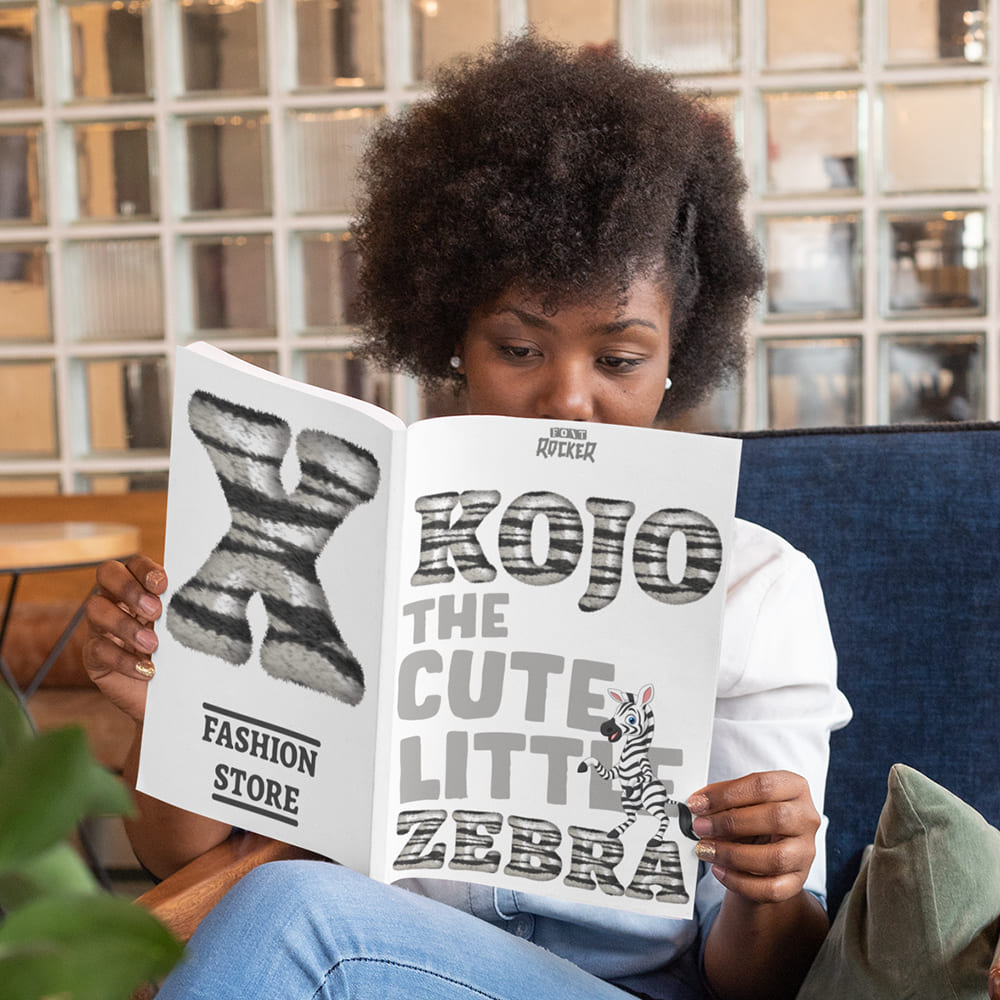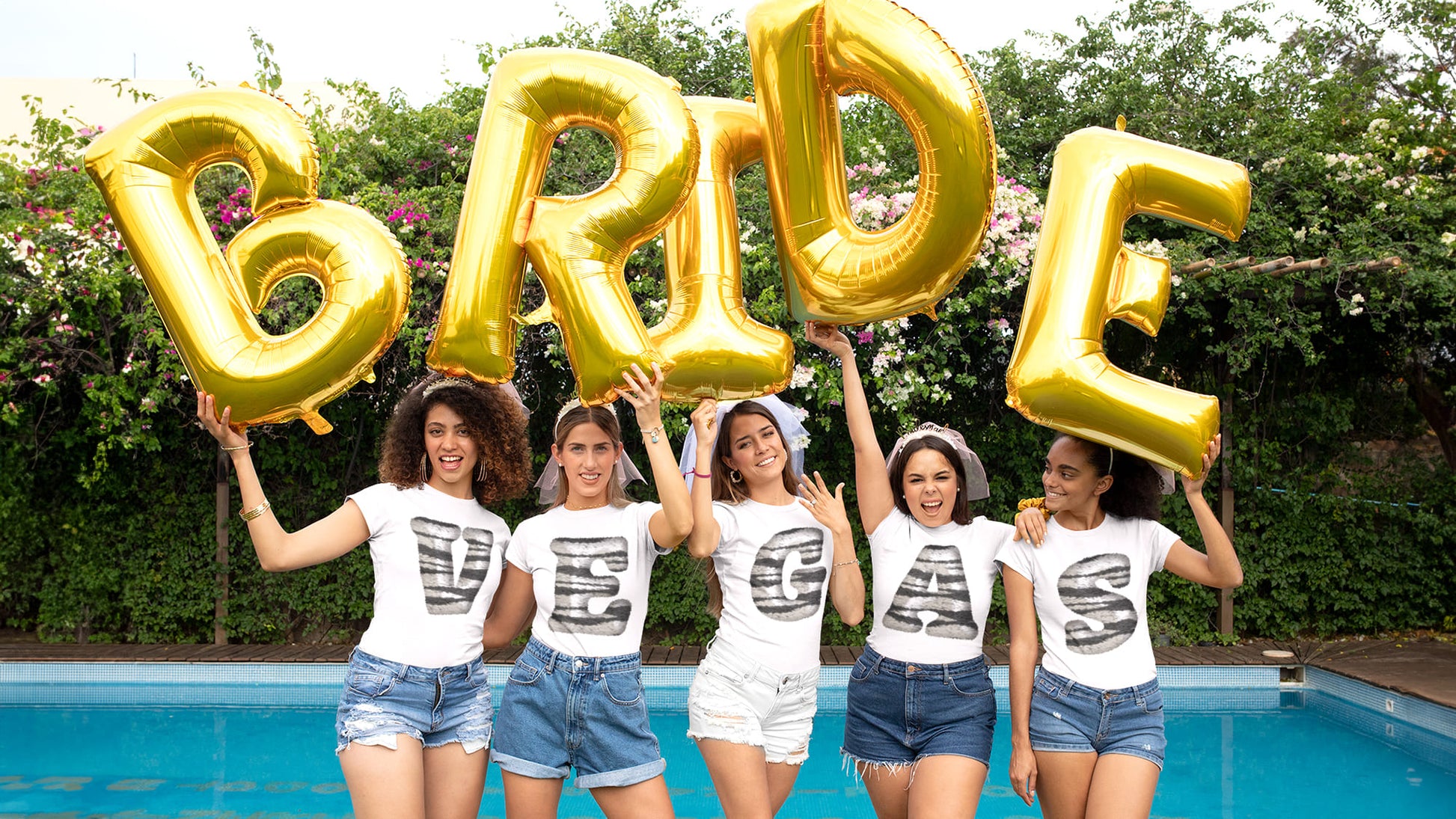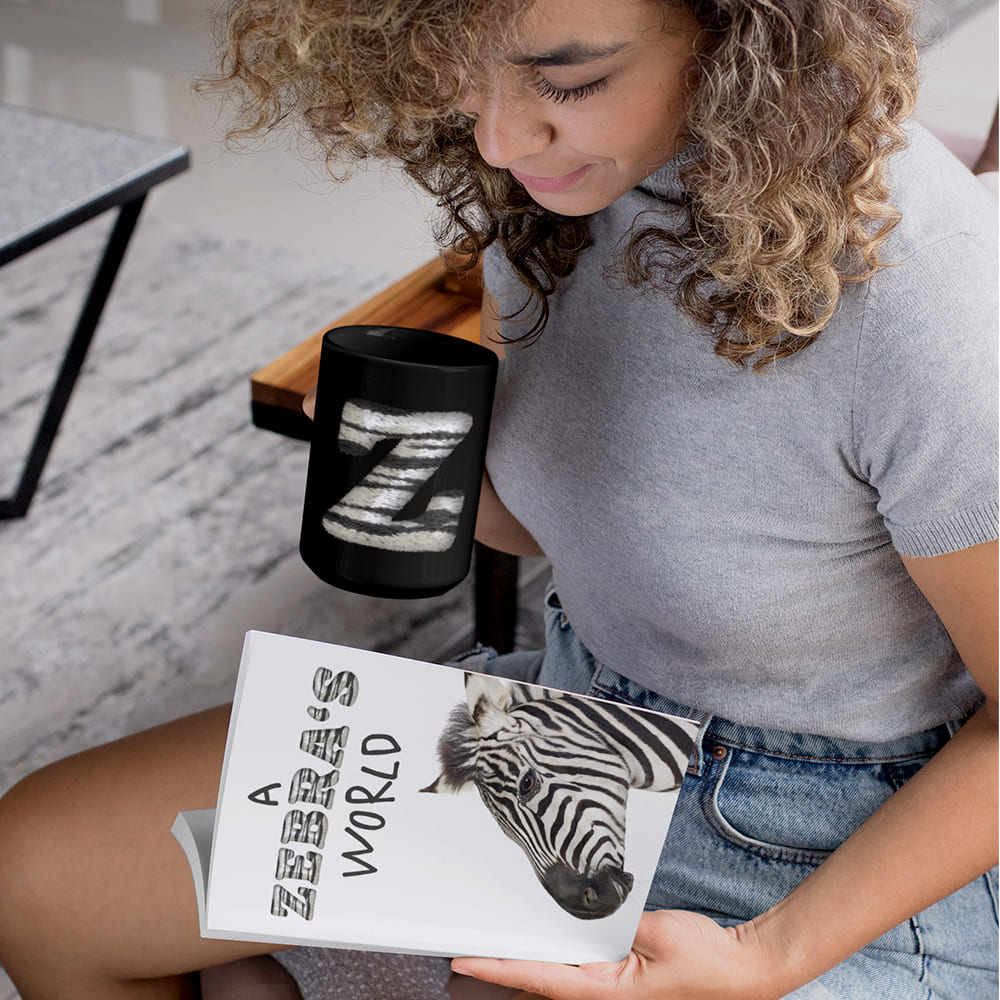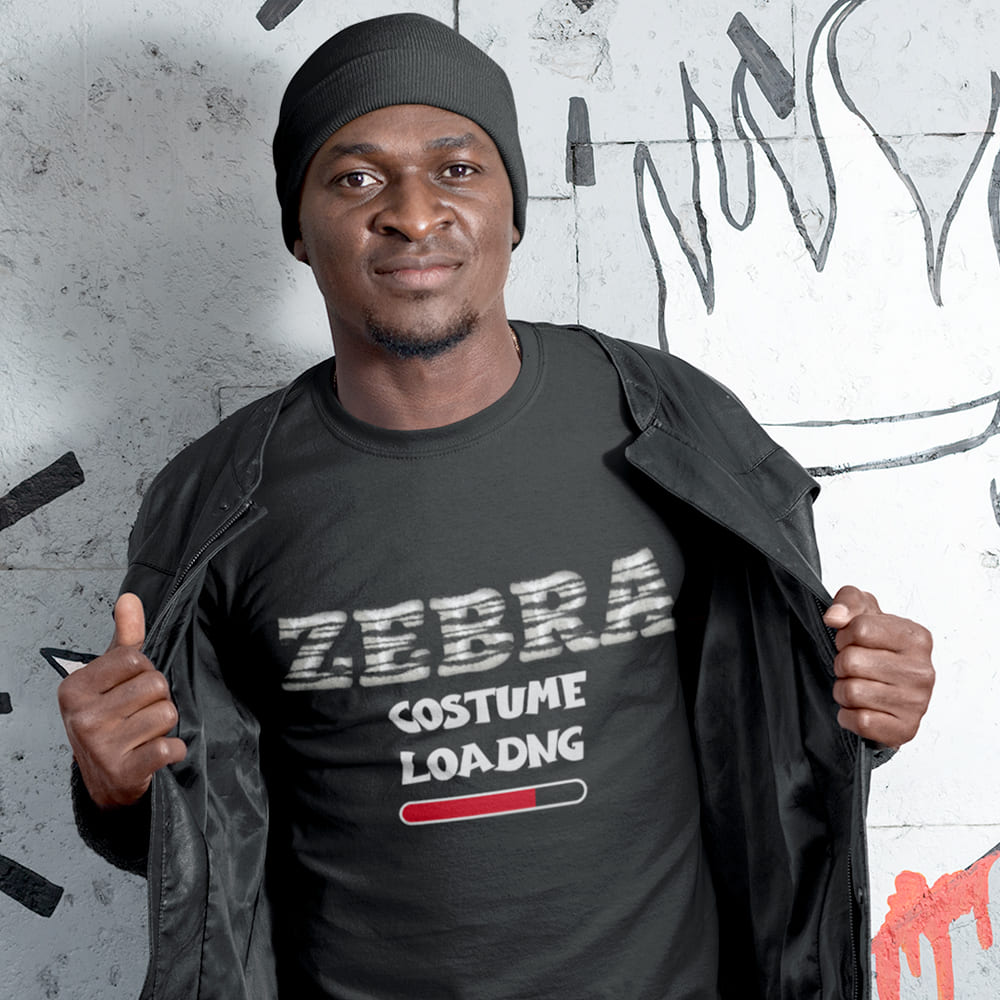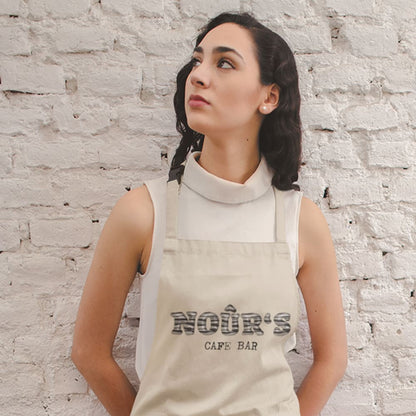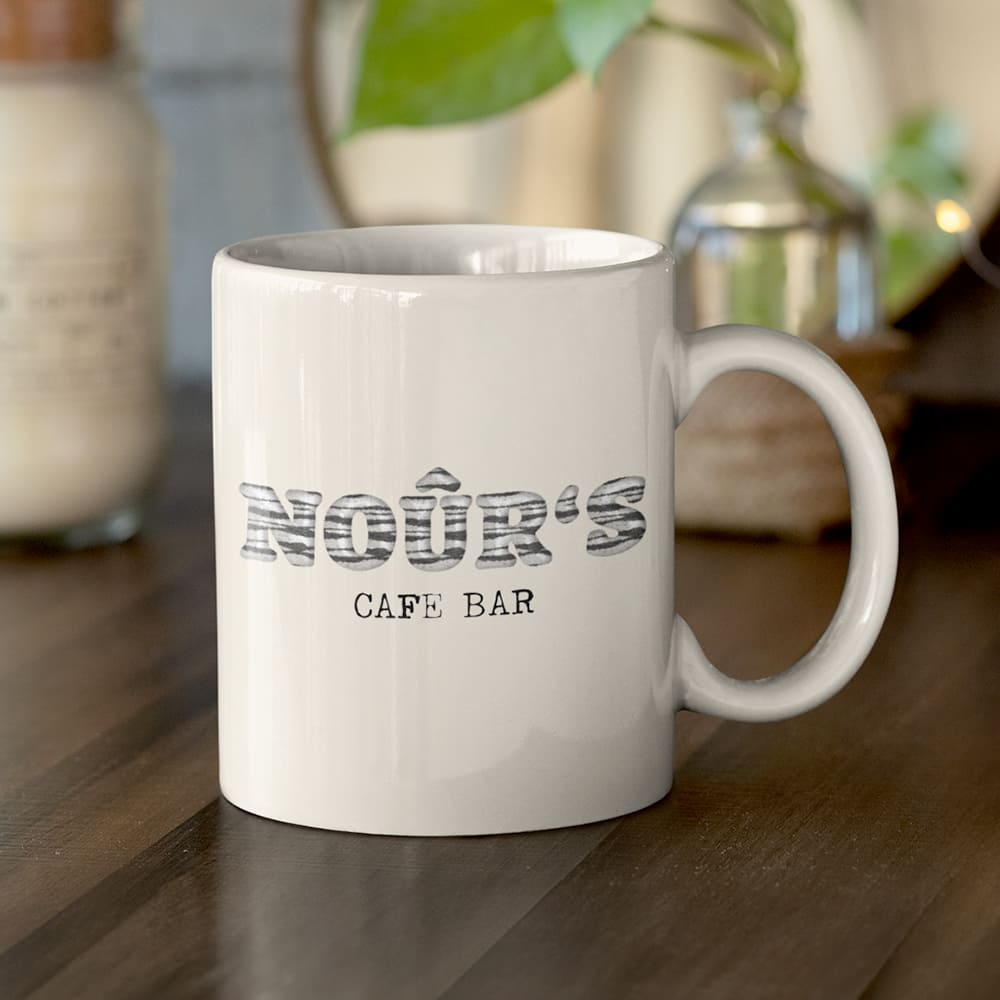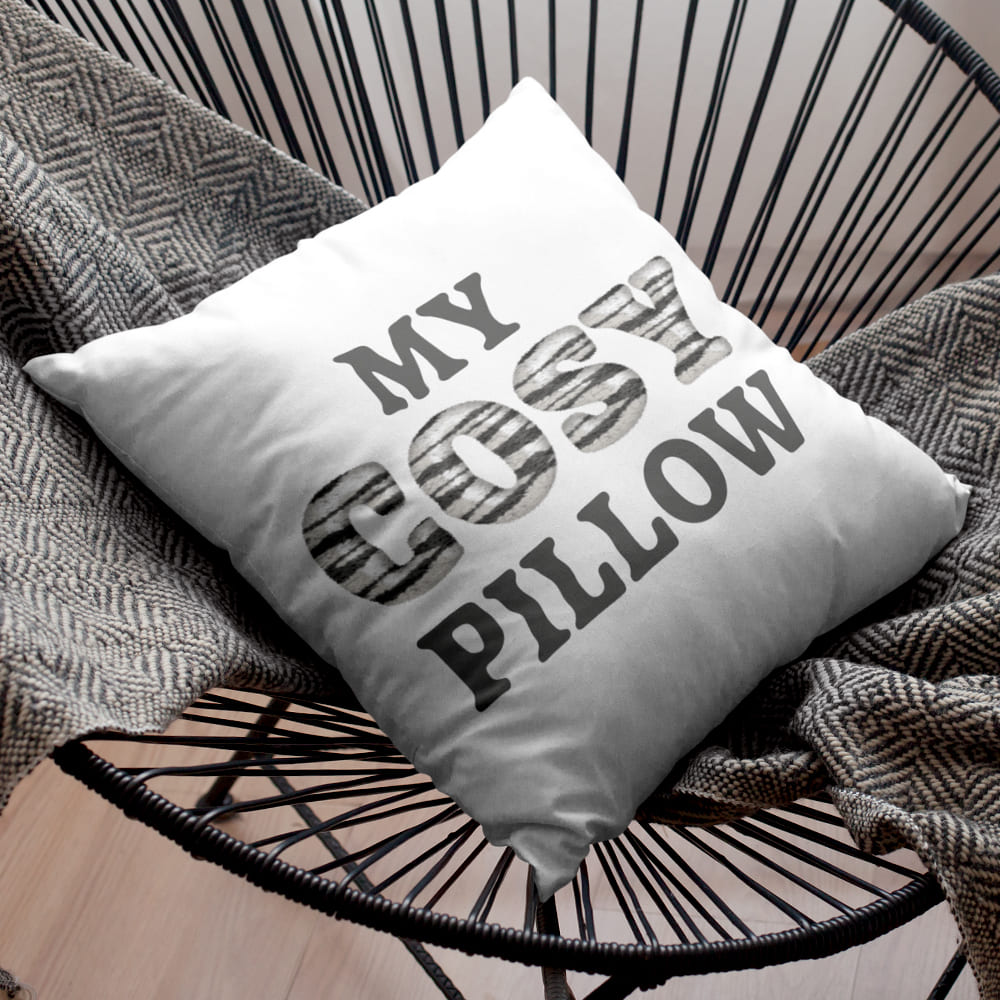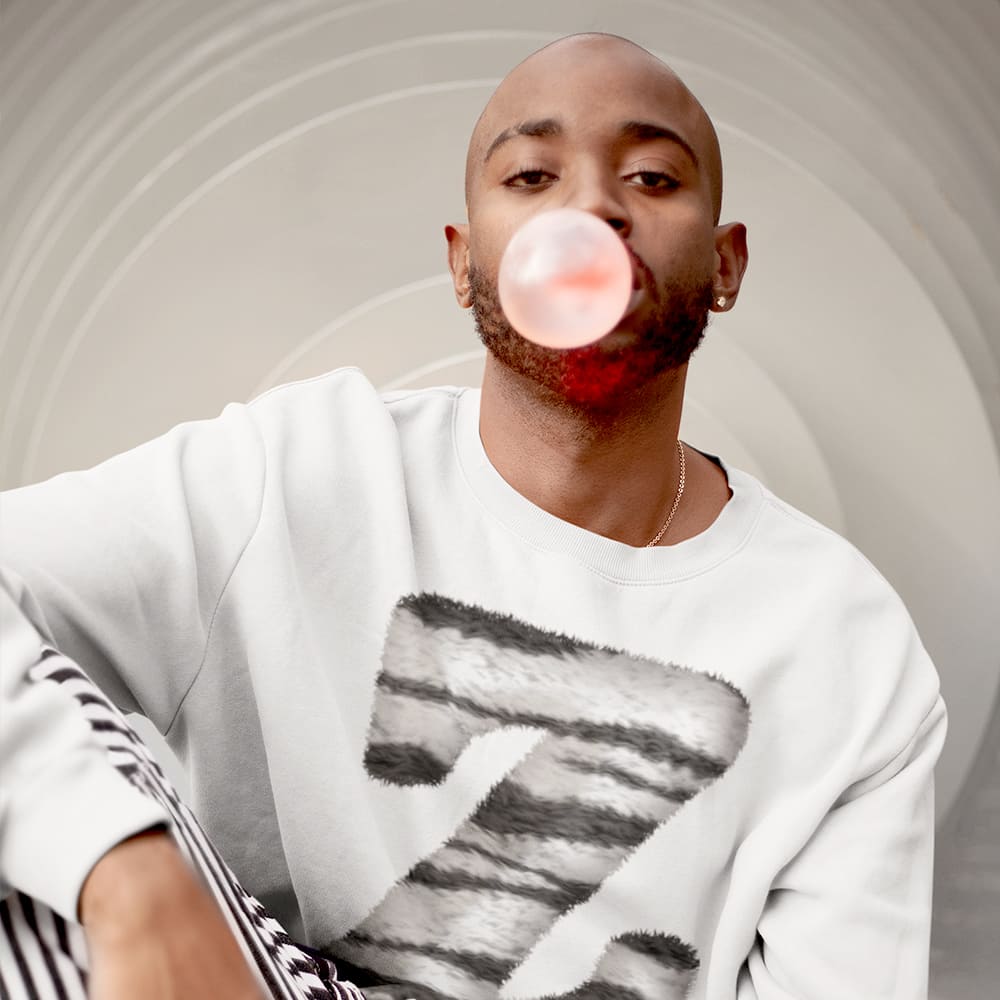
Zebra Font
Wild, Bold, Unmistakable 🖤🦓🤍
If your design needs impact, contrast, and pure wild energy, then the Zebra Font is the perfect choice! Inspired by the unique stripes of Africa, this font blends nature, dynamism, and style into a look that immediately grabs attention.
The zebra’s stripes aren’t just a pattern—they’re a statement. Distinctive, one-of-a-kind, and full of energy. Just like this font! Whether you're going for urban street style, exotic elegance, or pure extravagance, the Zebra Font makes your text roar.
Why Choose the Zebra Font?
🔹 High-contrast & expressive – A design that immediately stands out and amplifies your message with power and style.
🔹 Wild & trendy – Perfect for fashion, branding, posters, social media, and any project that refuses to blend in.
🔹 Inspired by nature – The organic flow of zebra stripes gives every design a vibrant, untamed feel.
Unleash the Wild in Your Design!
With the Zebra Font, you bring elegant wilderness and bold patterns to your creations. A font that isn’t just seen—it’s felt, just like the raw beauty of nature.
🔹 Show your stripes. Be unique. Choose the Zebra Font.